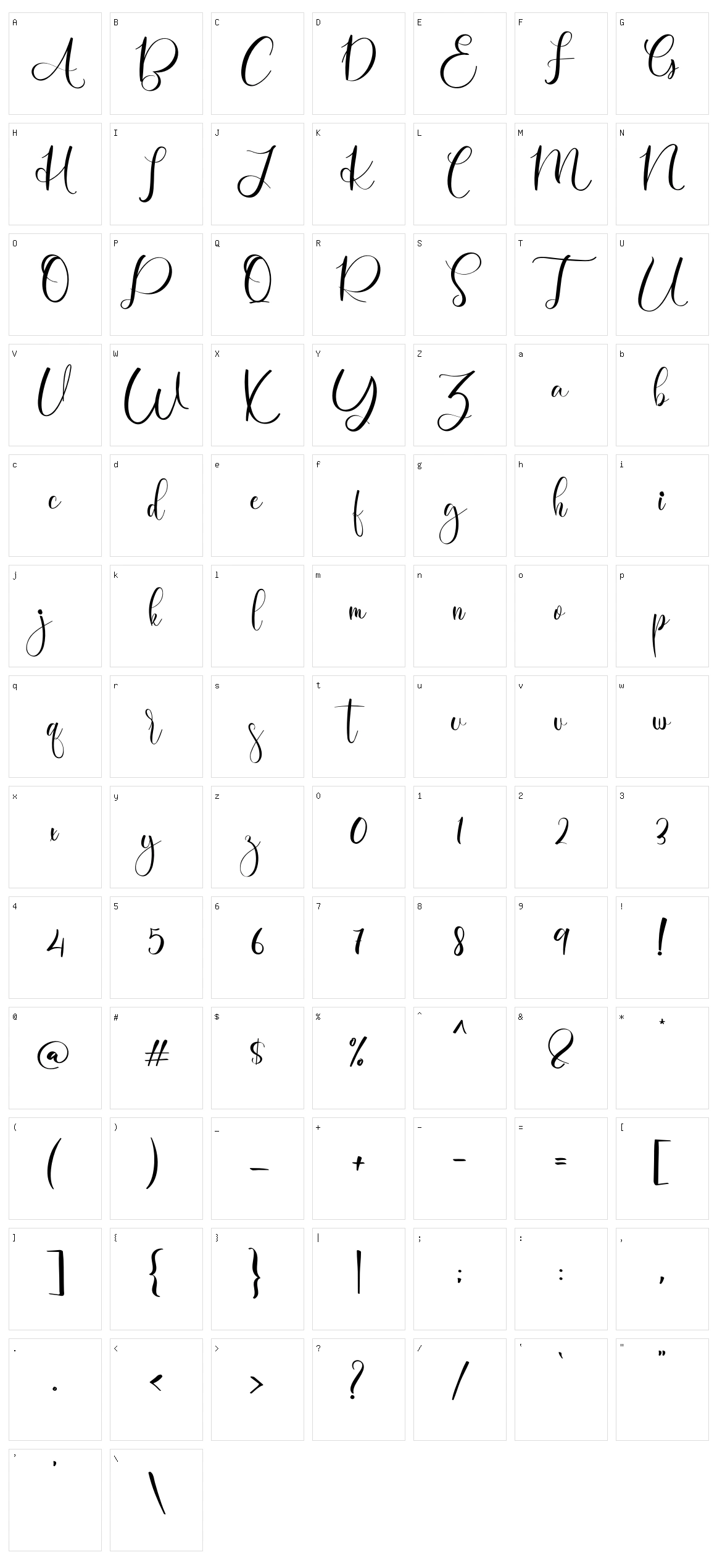
The free font Baby Signature is carefully designed by FreshtypeINK, showcasing a thoughtful balance of creativity and usability and falls under the Script font style. When you download the ZIP file, it contains only 50.39 KB of font files, making it lightweight and quick to download. Please review the license details below to understand permitted usage and distribution rights. If license information is not available, we recommend using this font for personal projects only or contacting the author directly for commercial usage permissions.